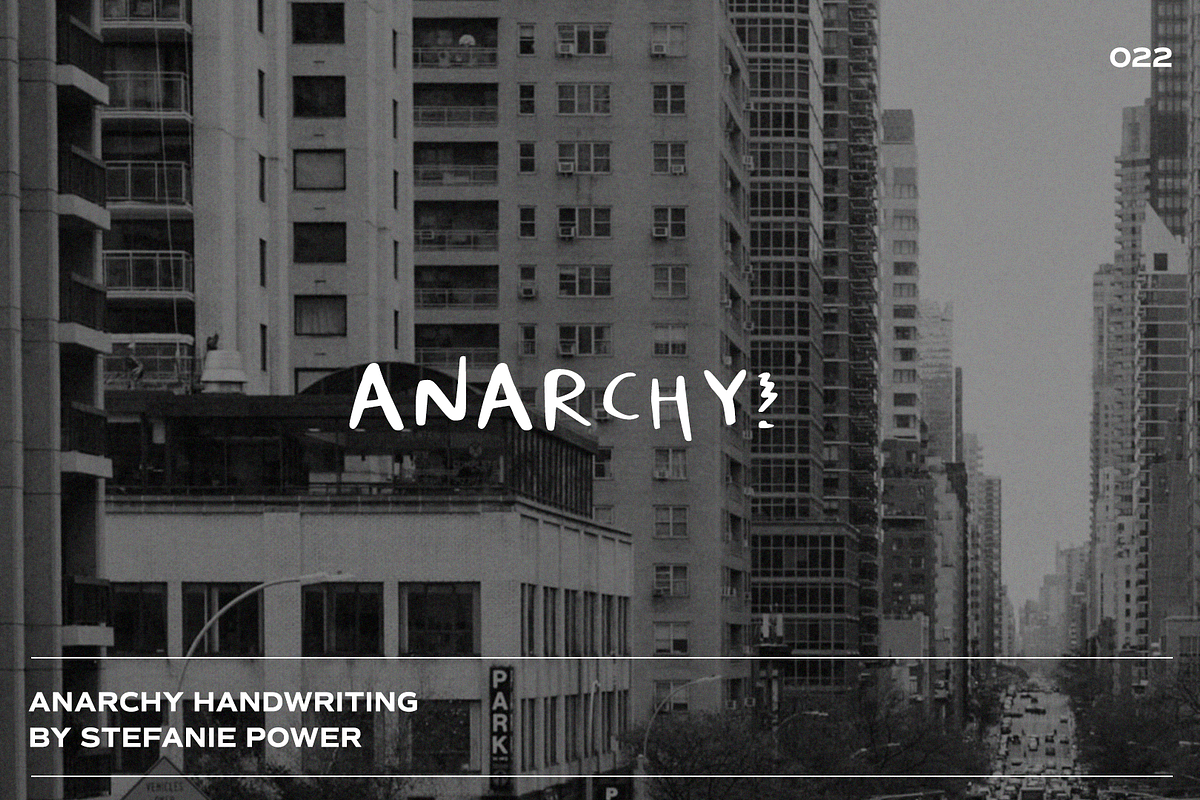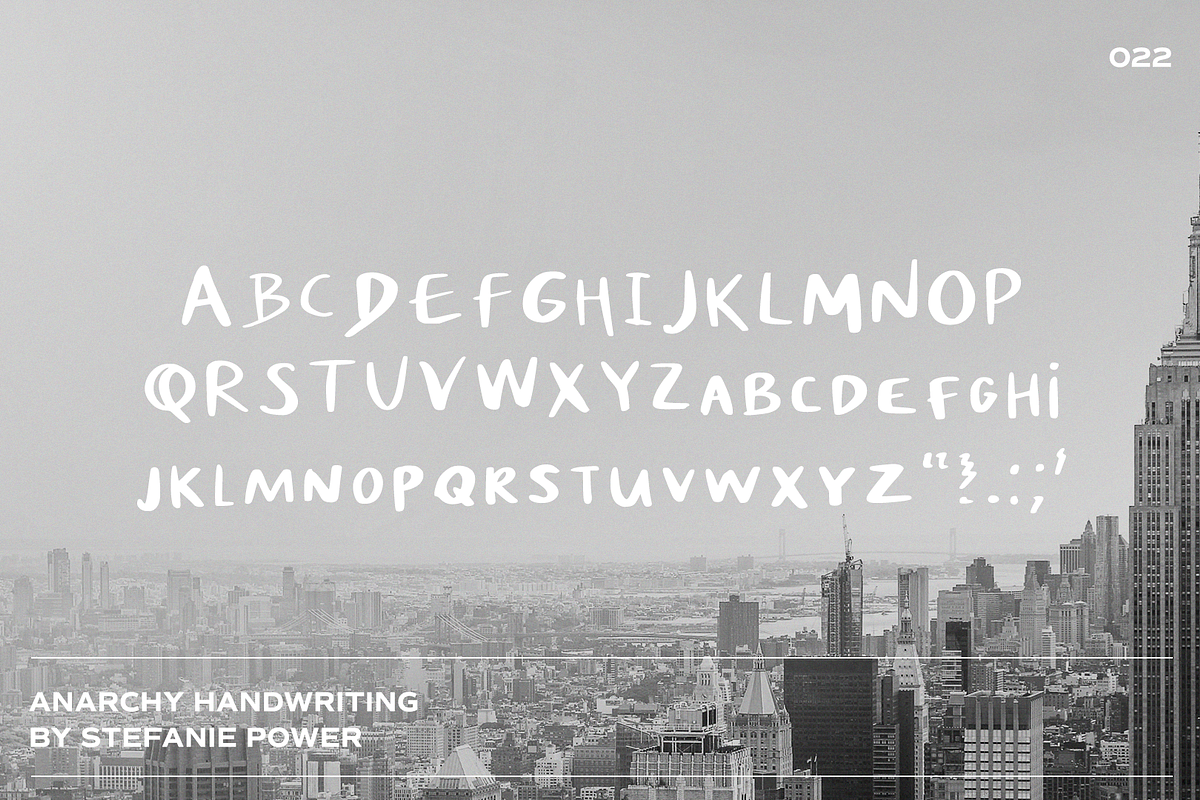
Anarchy Handwriting | Font
Introducing 'Anarchy' - a bold and daring font.
Anarchy Handwriting • A handwritten script font containing upper & lowercase characters and a range of punctuation and numbers.